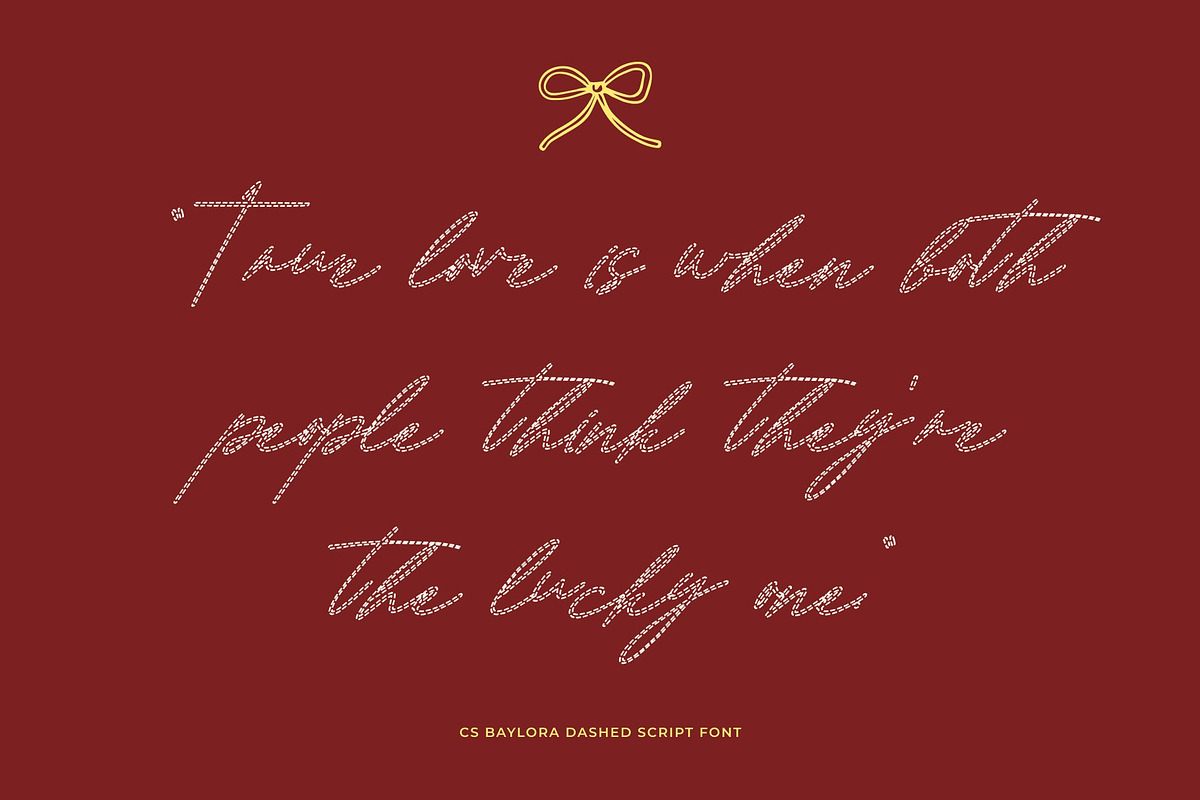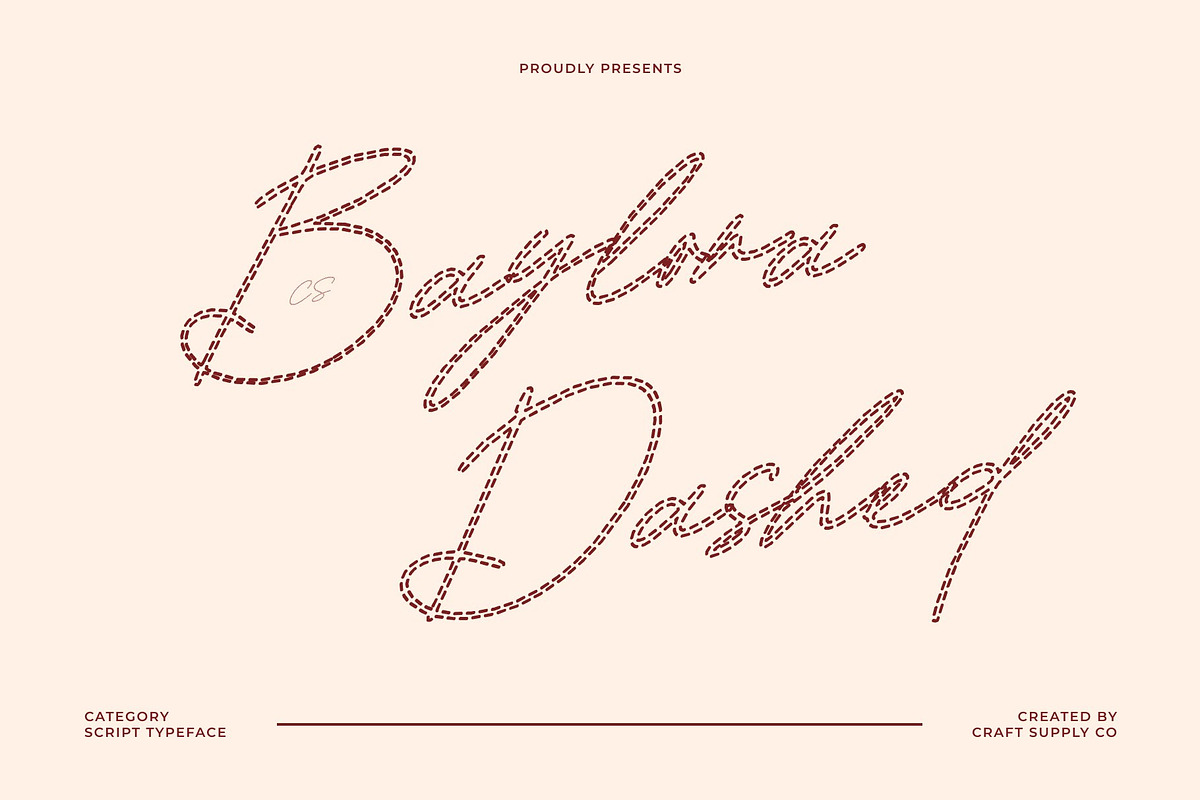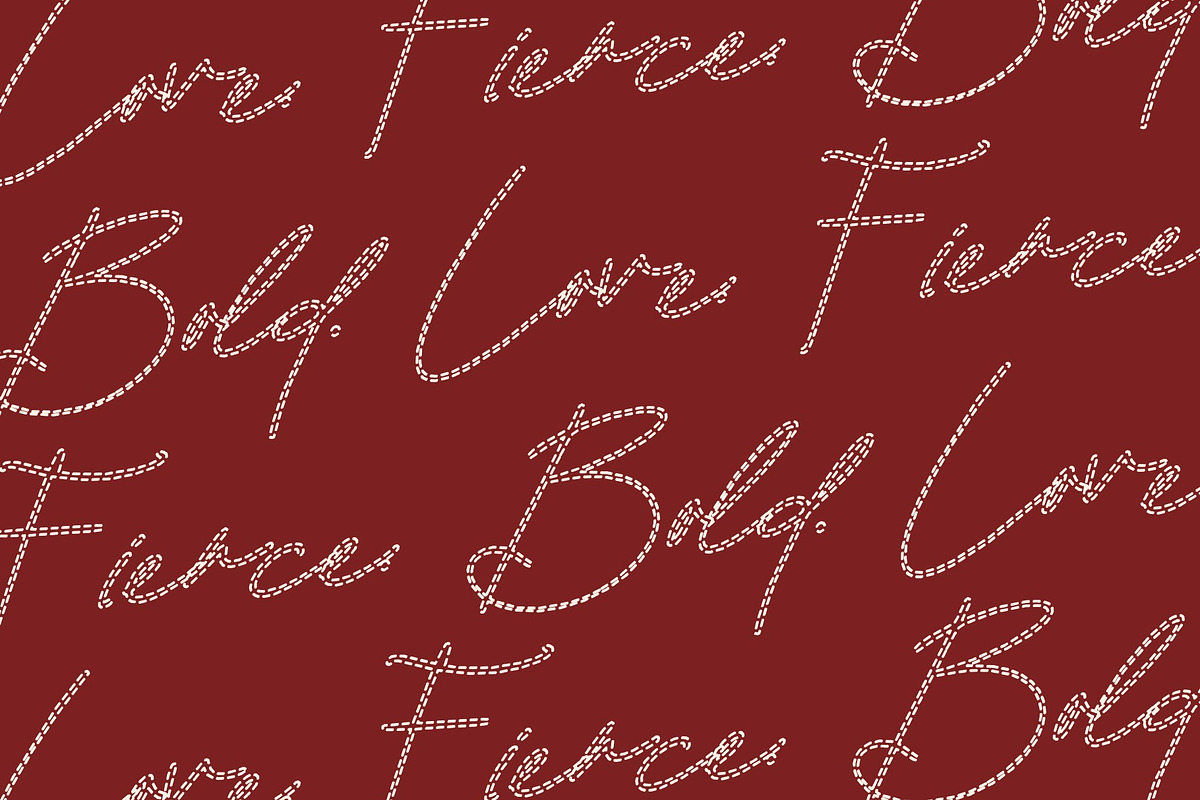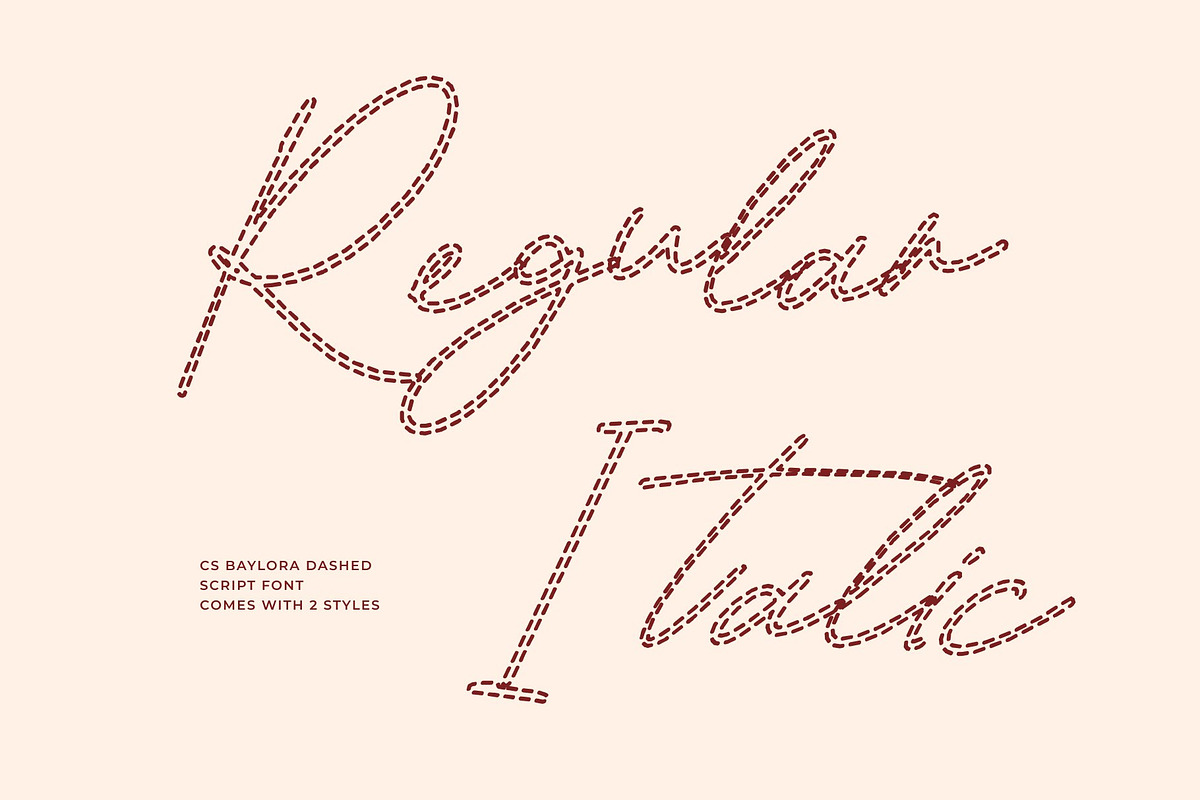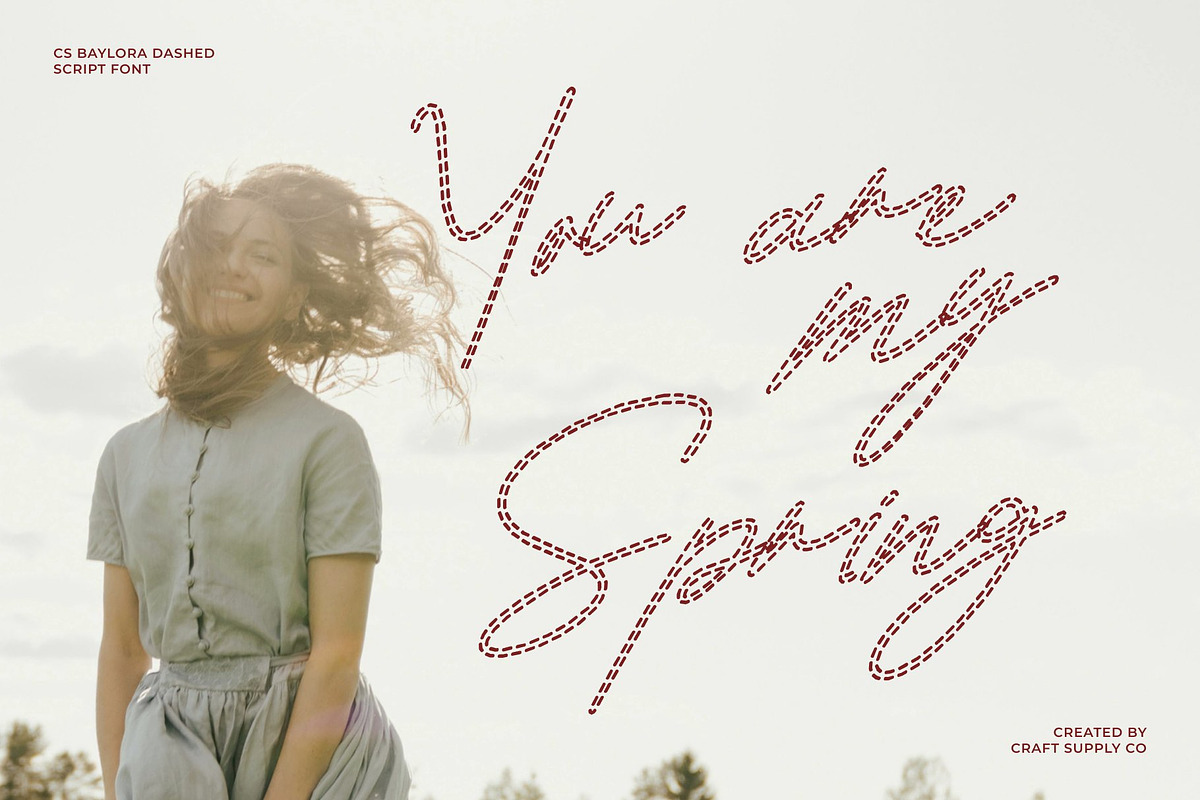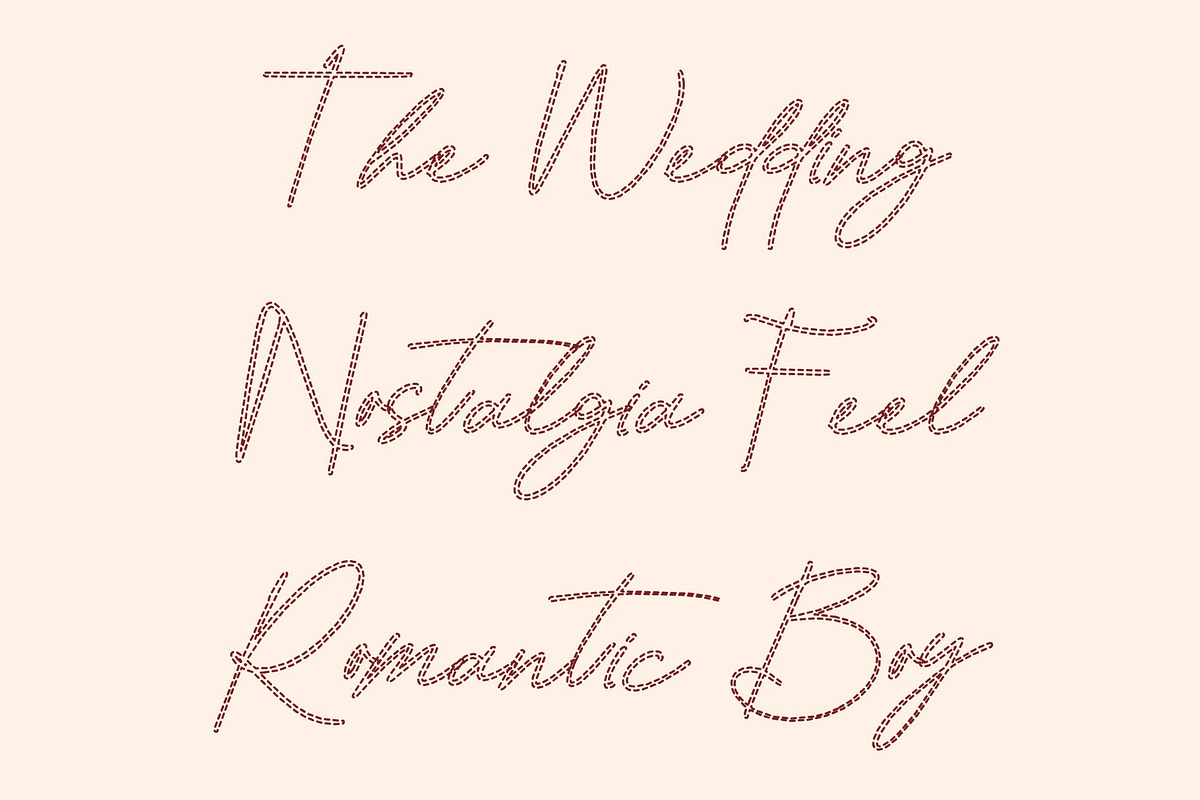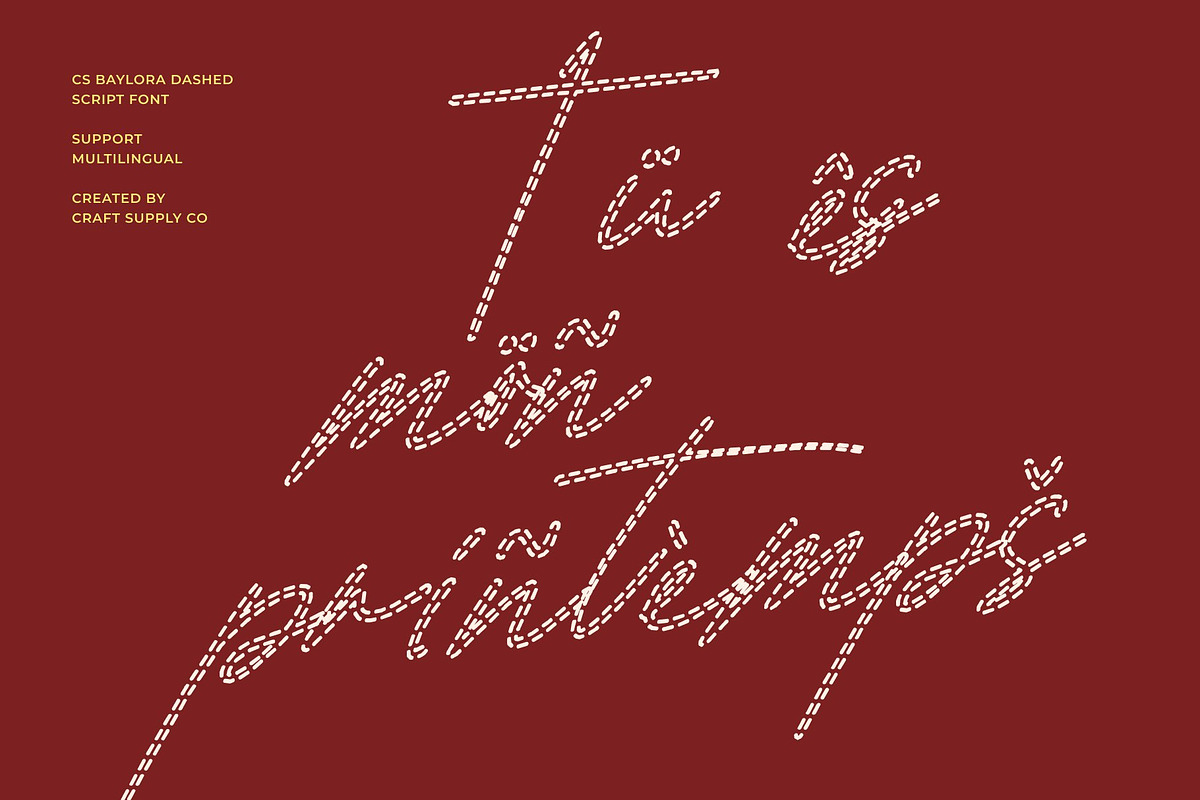
CS Baylora Dashed
CS Baylora Dashed – Elegant Signature Script with Personal Sophistication
Handwritten Elegance with Personal Charm This is a signature script font designed to capture the fluid beauty and exclusivity of authentic handwritten signatures. Its flowing strokes and subtle dashed texture create a refined, personal impression that feels both intimate and sophisticated.
Smooth Signature Flow for Refined Aesthetics The graceful, continuous lines mimic the effortless movement of pen on paper, producing a natural handwritten effect that feels intentional and artistic. This elegant rhythm enhances visual harmony, making the font perfect for designs that require a polished and luxurious presence.
Distinctive Character for Stylish Identity With expressive curves and delicate details, the font brings individuality and charm to every composition. Its signature personality helps brands communicate authenticity, elegance, and confidence whether used as a bold focal point or a subtle accent.
Perfect for Logos, Branding, and Luxury Invitations Ideal for high-end creative projects, this font shines in logos, boutique branding, luxury packaging, wedding stationery, and editorial layouts. From personal monograms to premium brand signatures, it delivers refined beauty with a graceful handwritten touch.